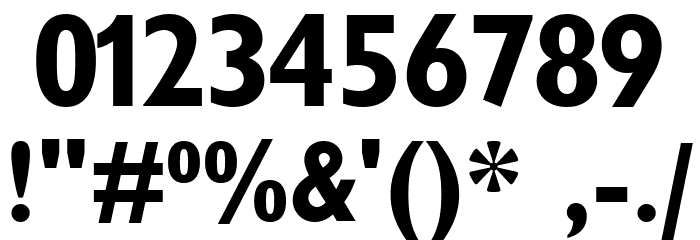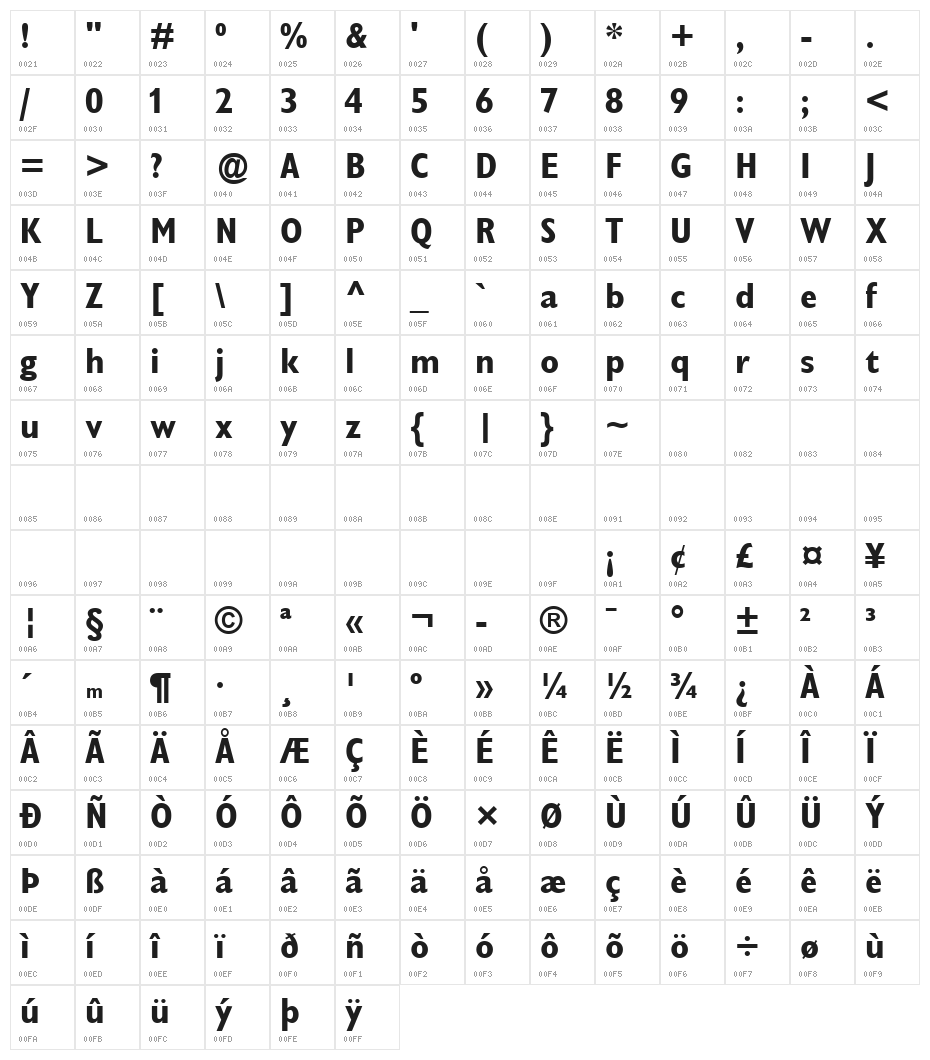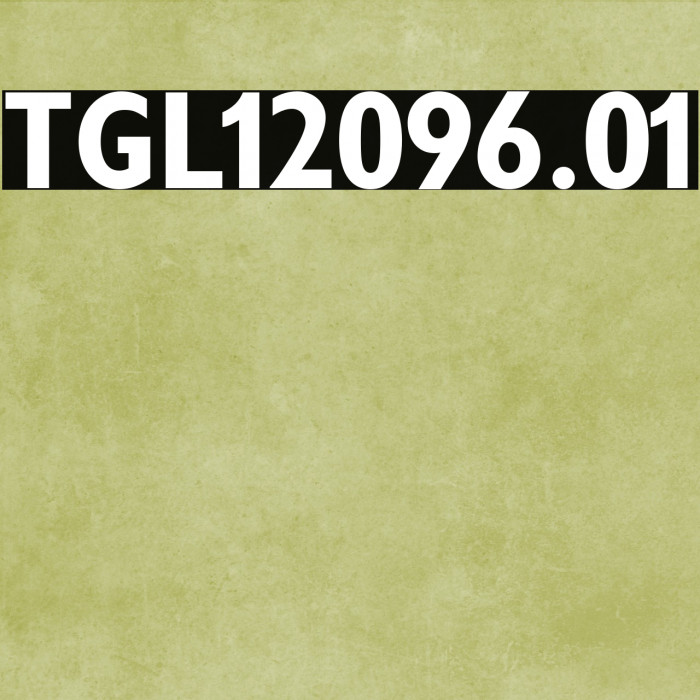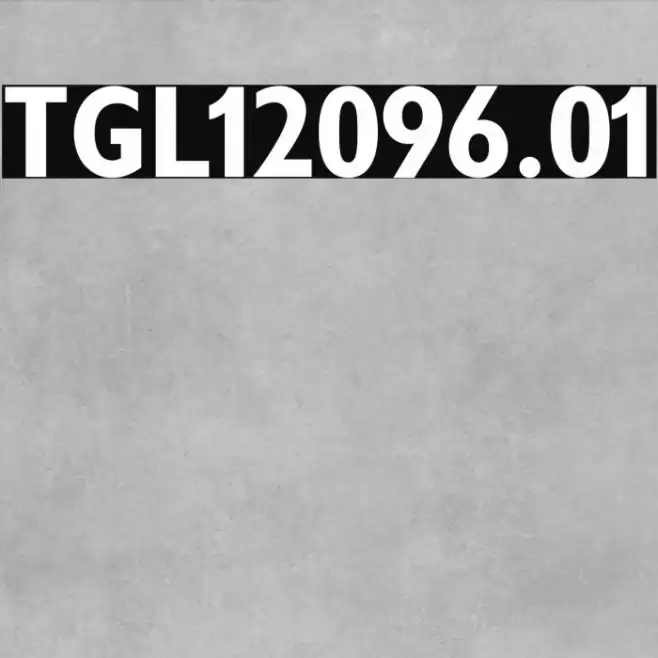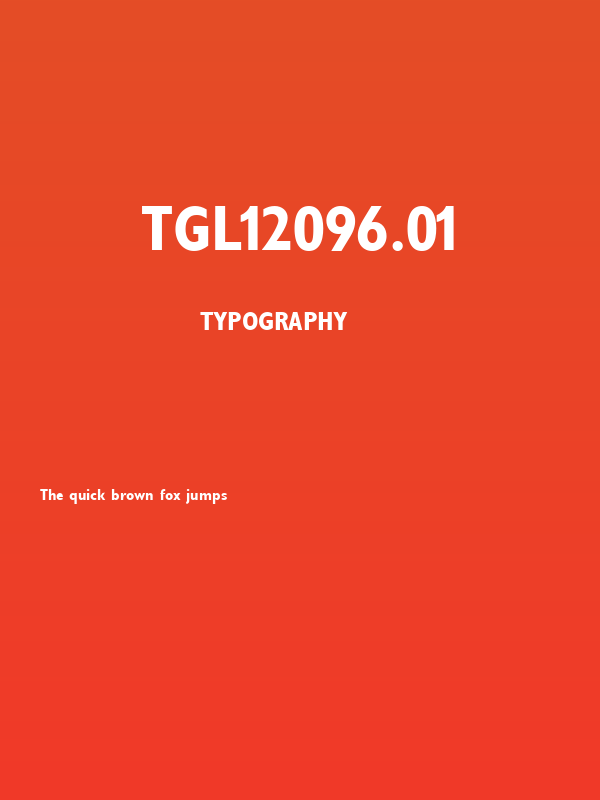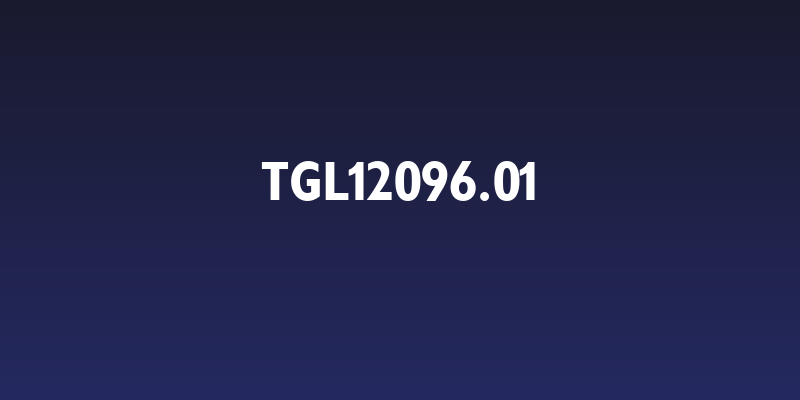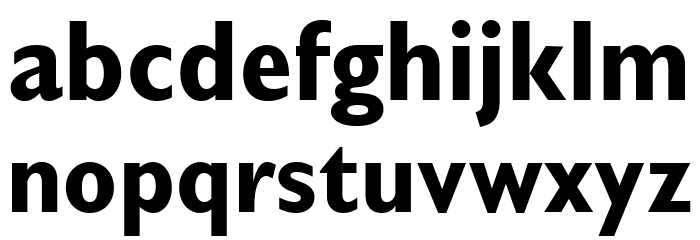
TGL12096.01 Font
TGL12096.01 Description
This typeface features bold, clean lines with a modern and robust appearance. The characters are well-defined with consistent stroke widths, providing a strong and confident look. Uppercase and lowercase letters are proportionate, with a slight emphasis on verticality. The numerals are clear and easy to read, making them suitable for various applications. Special characters are distinct and maintain the overall aesthetic of the font. The design is versatile, suitable for both digital and print media, offering excellent readability and visual impact.
| Use Case | Headlines, Logos, Advertising |
| Proposed Projects | Ideal for branding, advertising, headlines, and digital media where a bold statement is needed. |